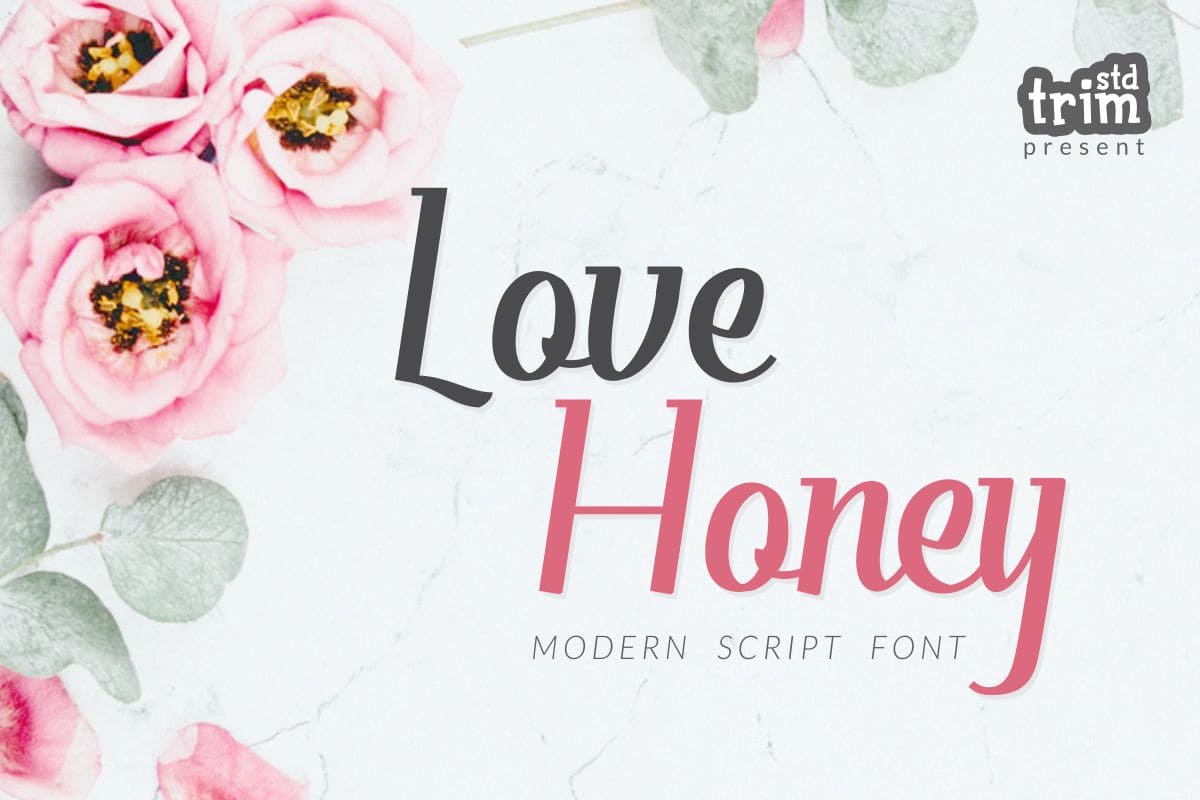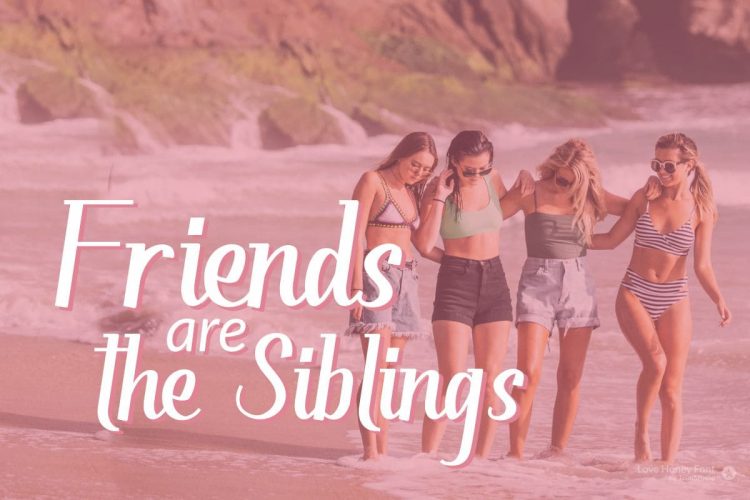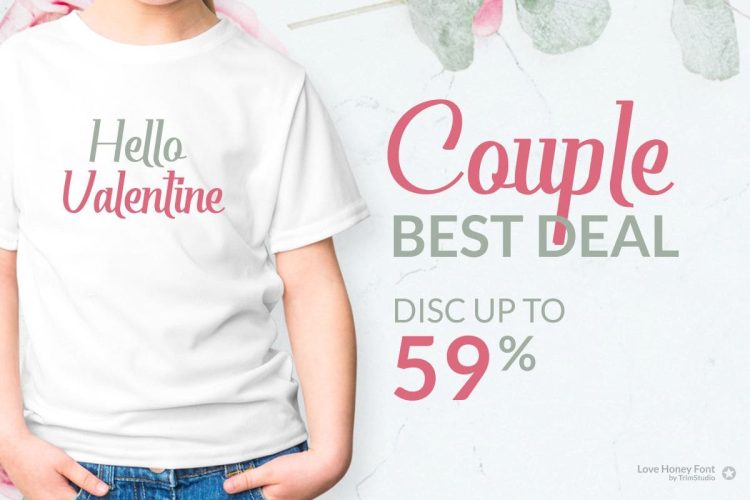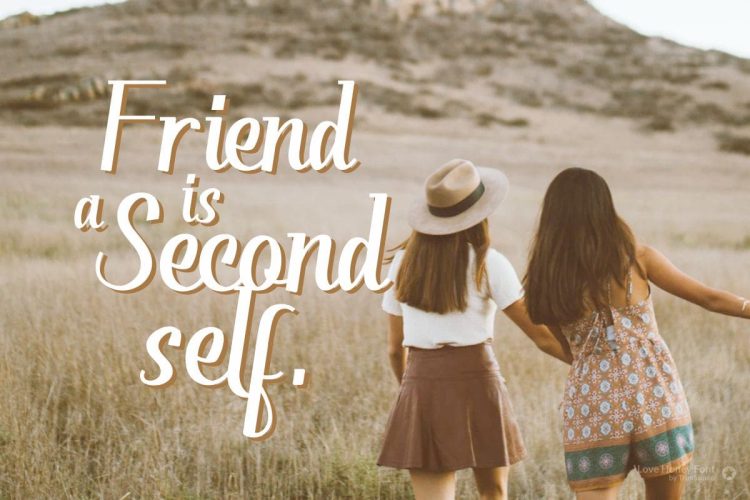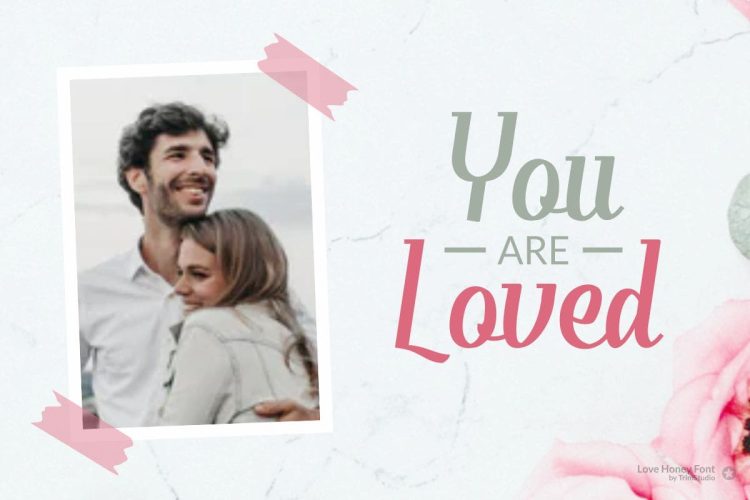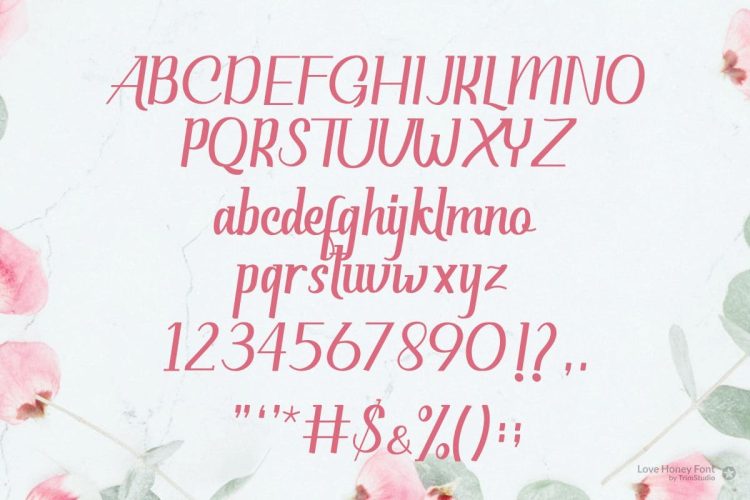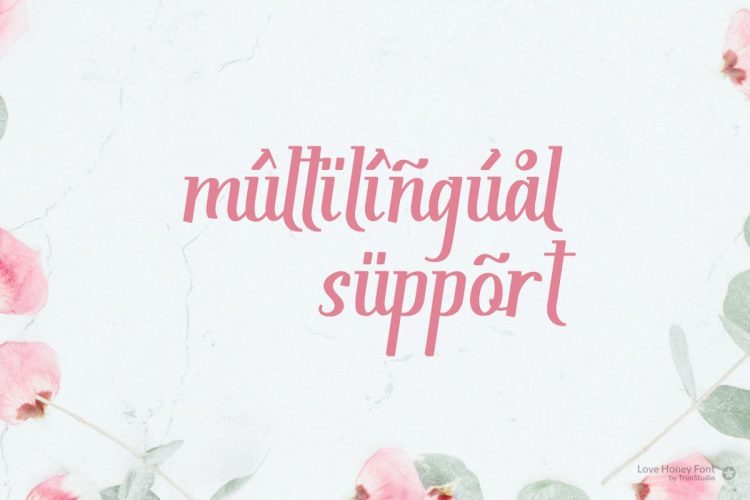
Love Honey is a truly romantic and luscious script font with a lovely feel. It will take you Valentine’s crafts to the next level, and belongs in any crafter’s font collection!